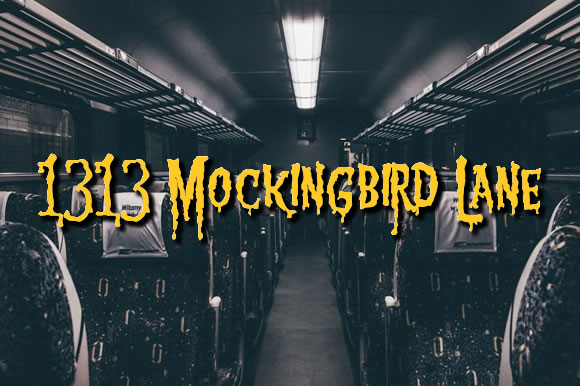
1313 Mockingbird Lane
About 1313 Mockingbird Lane Font
Scary & Slimy, that sums up this fun free font created by Jeff Bensch.
The dripping letters are great for creating items for monster themed birthday bashes, kids invites & shirts, Halloween designs and more!